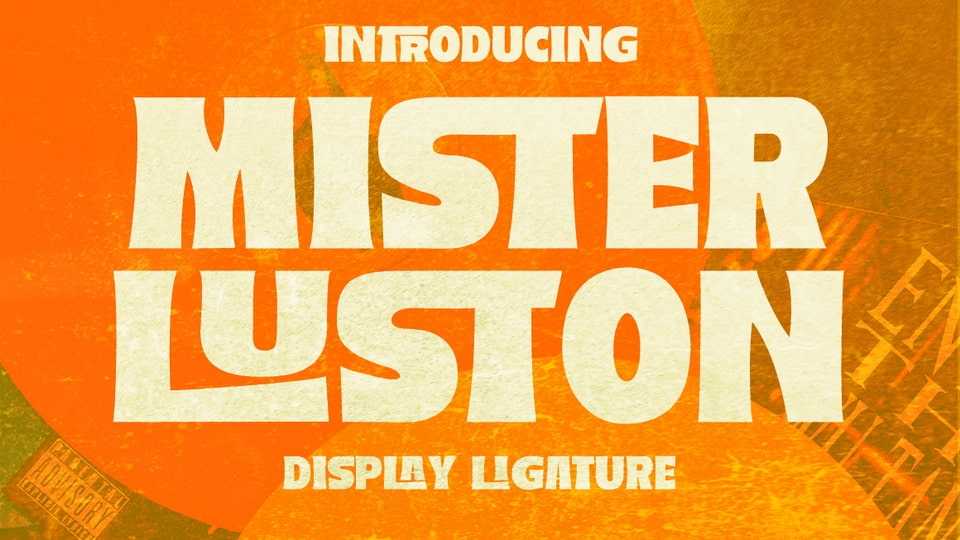
Download Mister Luston font, a bold, retro display typeface with lots of ligatures and alternatives that will make your presentation or logo stand out! This font will make your project look retro, chic and neat.